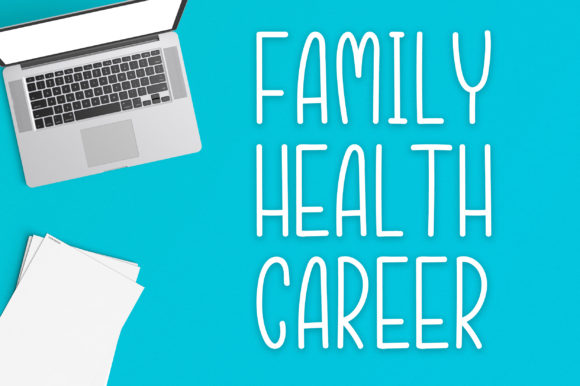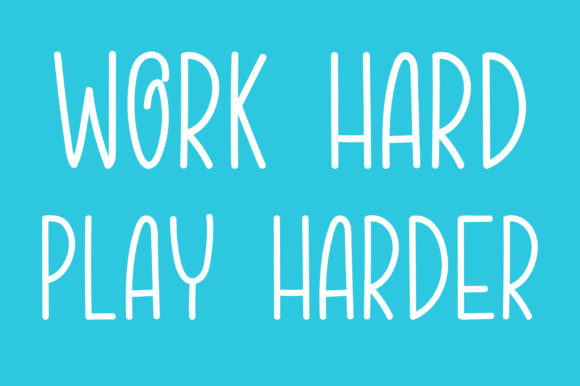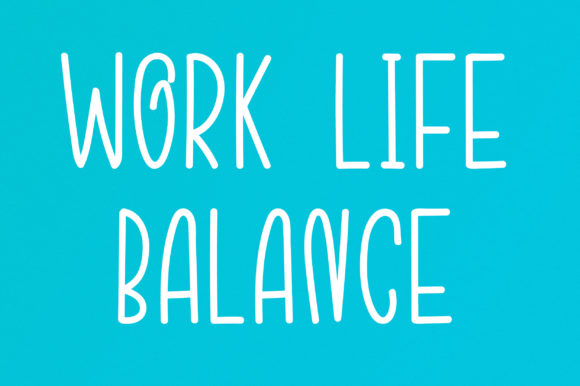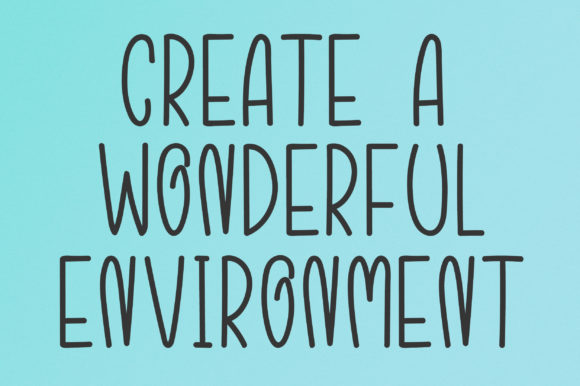
About Workaholic Font
Workaholic is a cute and casual handwritten font with an incredibly friendly feel. It will elevate a wide range of design projects to the highest level, be it branding, headings, invitations, signatures, logos, labels, and much more!